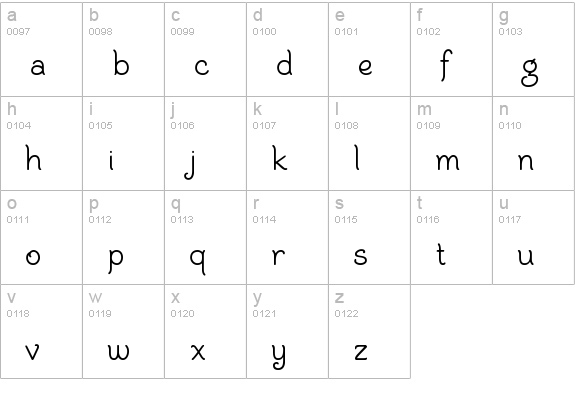
Birac DT Regular is the standard, neutral variant in the Birac typeface family \xE2\x80\x94 well suited to general body text, paragraphs, and standard typographic work.
Birac DT Regular is a versatile and modern font that adds a touch of sophistication to any design project. With its clean lines and elegant curves, this typeface is perfect for both headings and body text. The sleek and professional look of Birac DT Regular makes it ideal for a wide range of applications, from branding to editorial design. What sets Birac DT Regular apart is not only its aesthetic appeal but also its accessibility. This high-quality font is available for free download at FontsMarket.com, making it a valuable resource for designers, students, and anyone looking to enhance their projects with a premium typeface without breaking the bank. Whether you're working on a website, poster, or logo, Birac DT Regular is sure to elevate your design with its timeless style and effortless legibility. Download it today and see the difference it can make in your work.